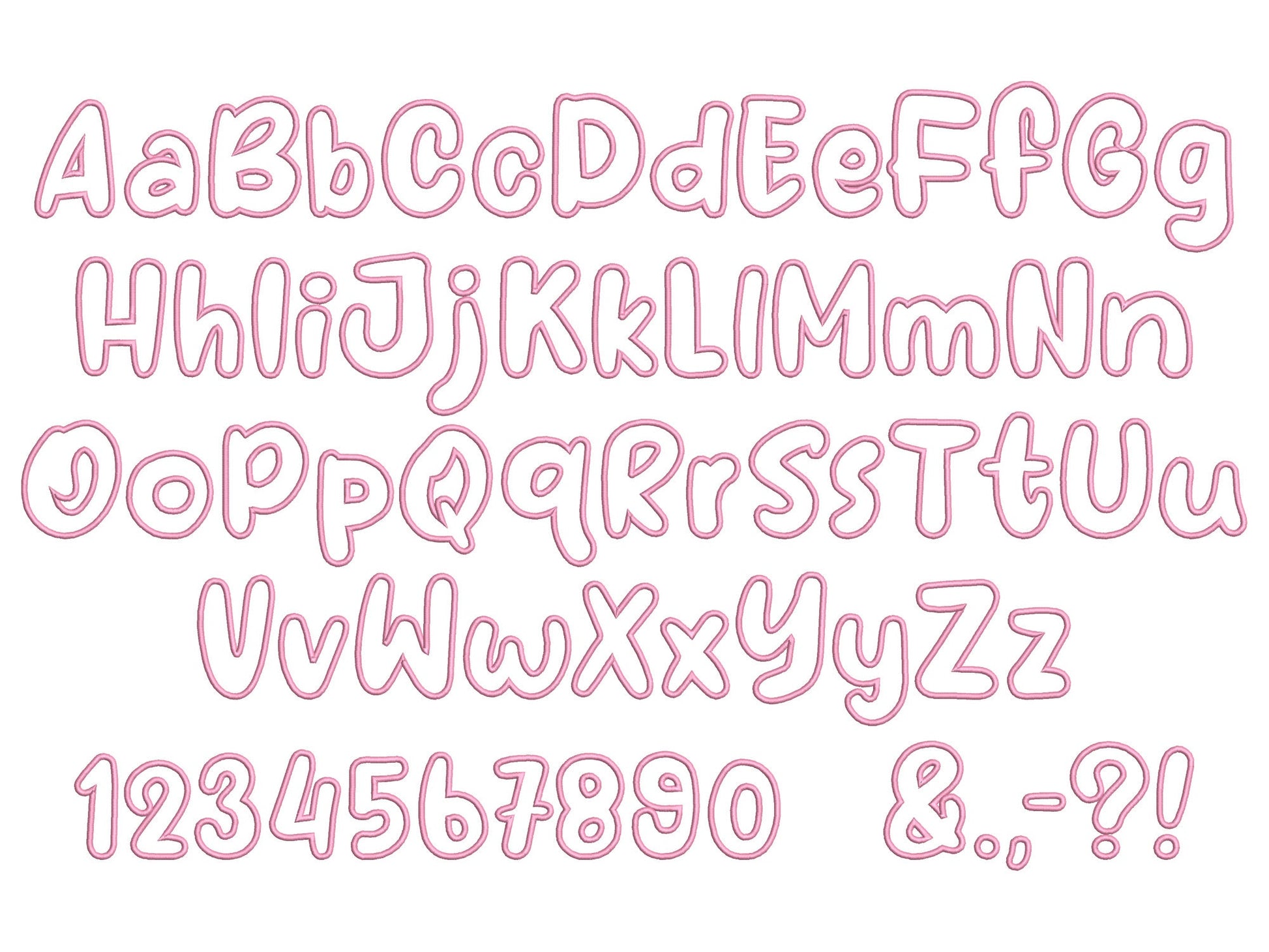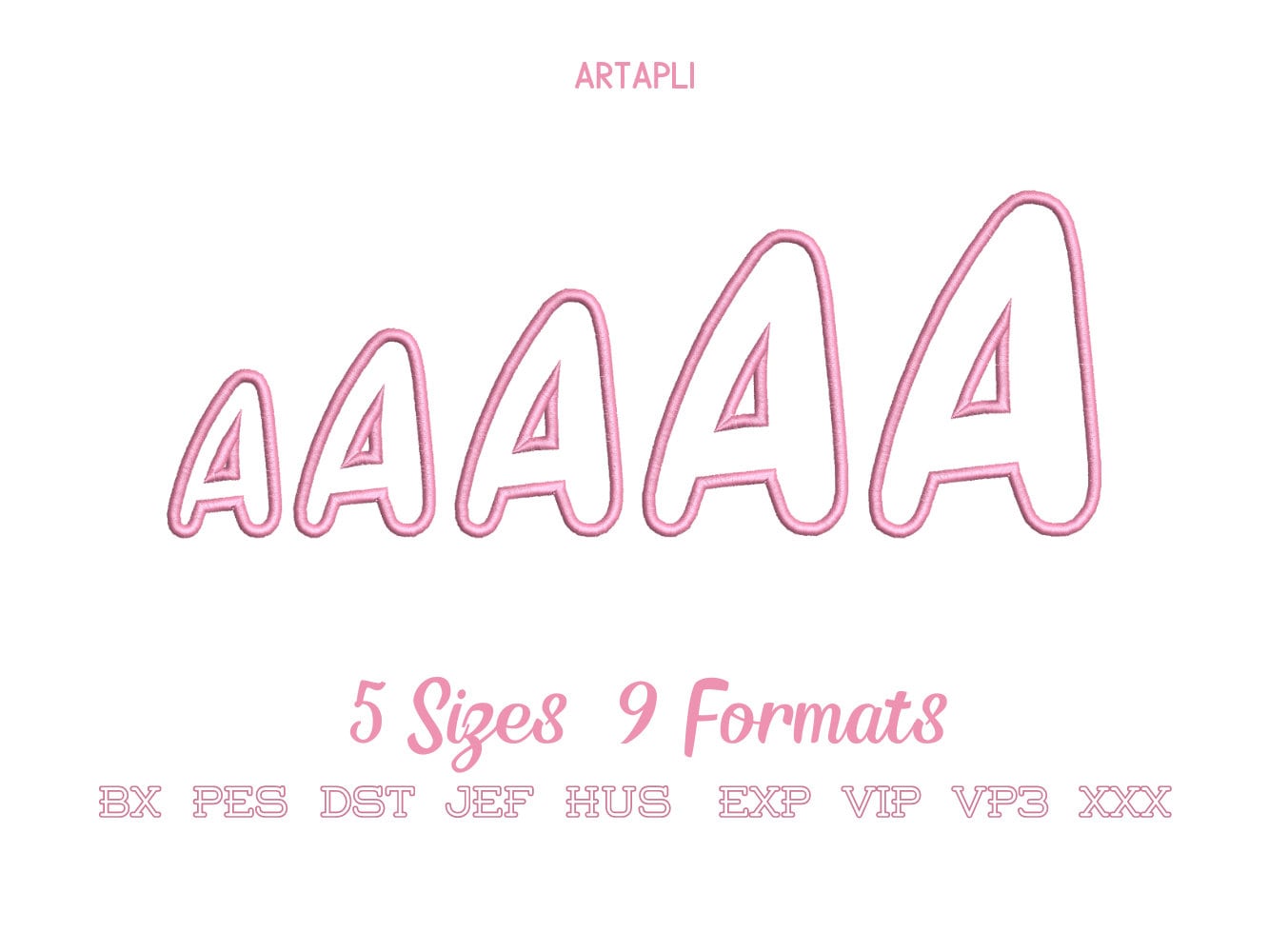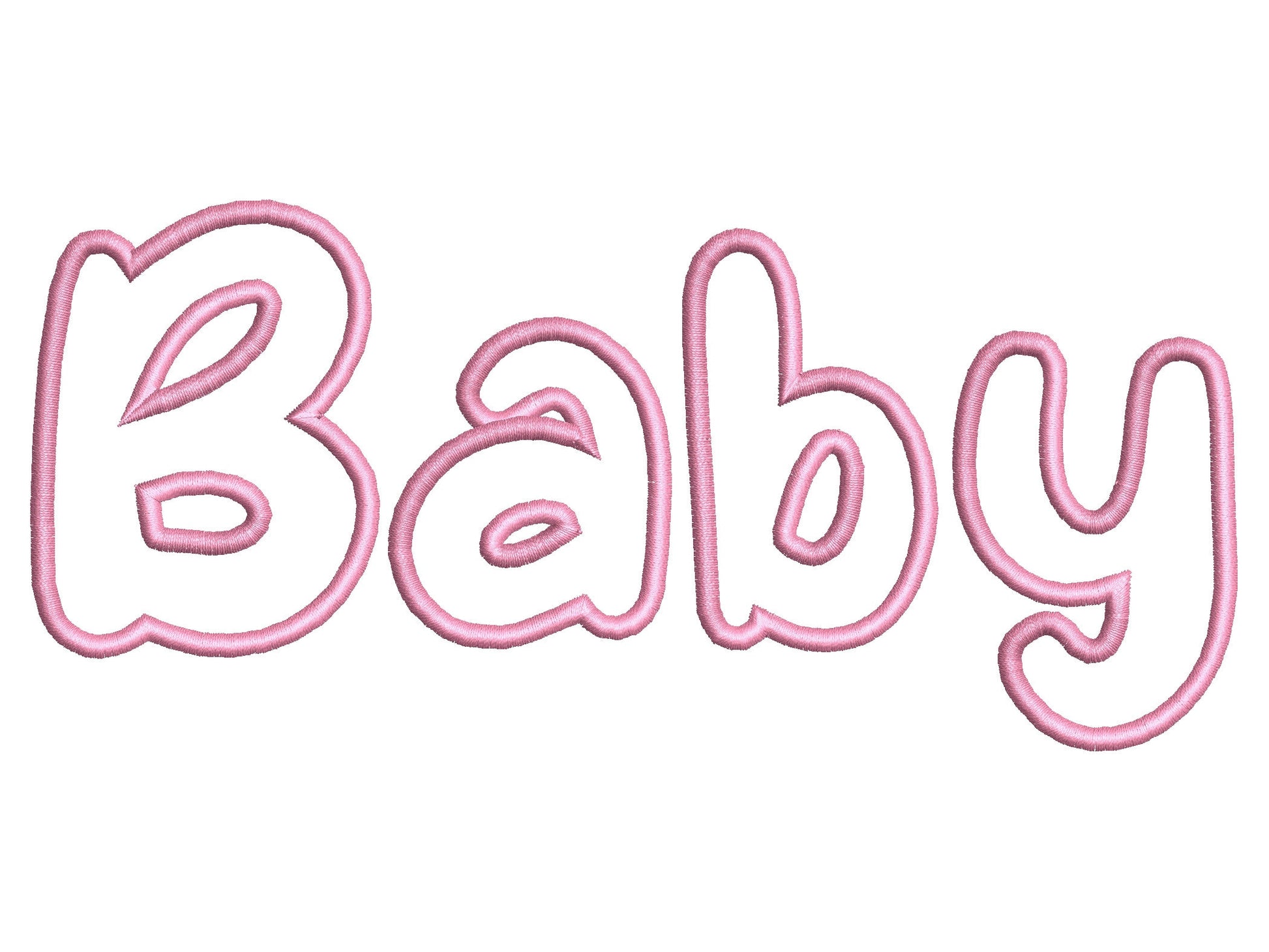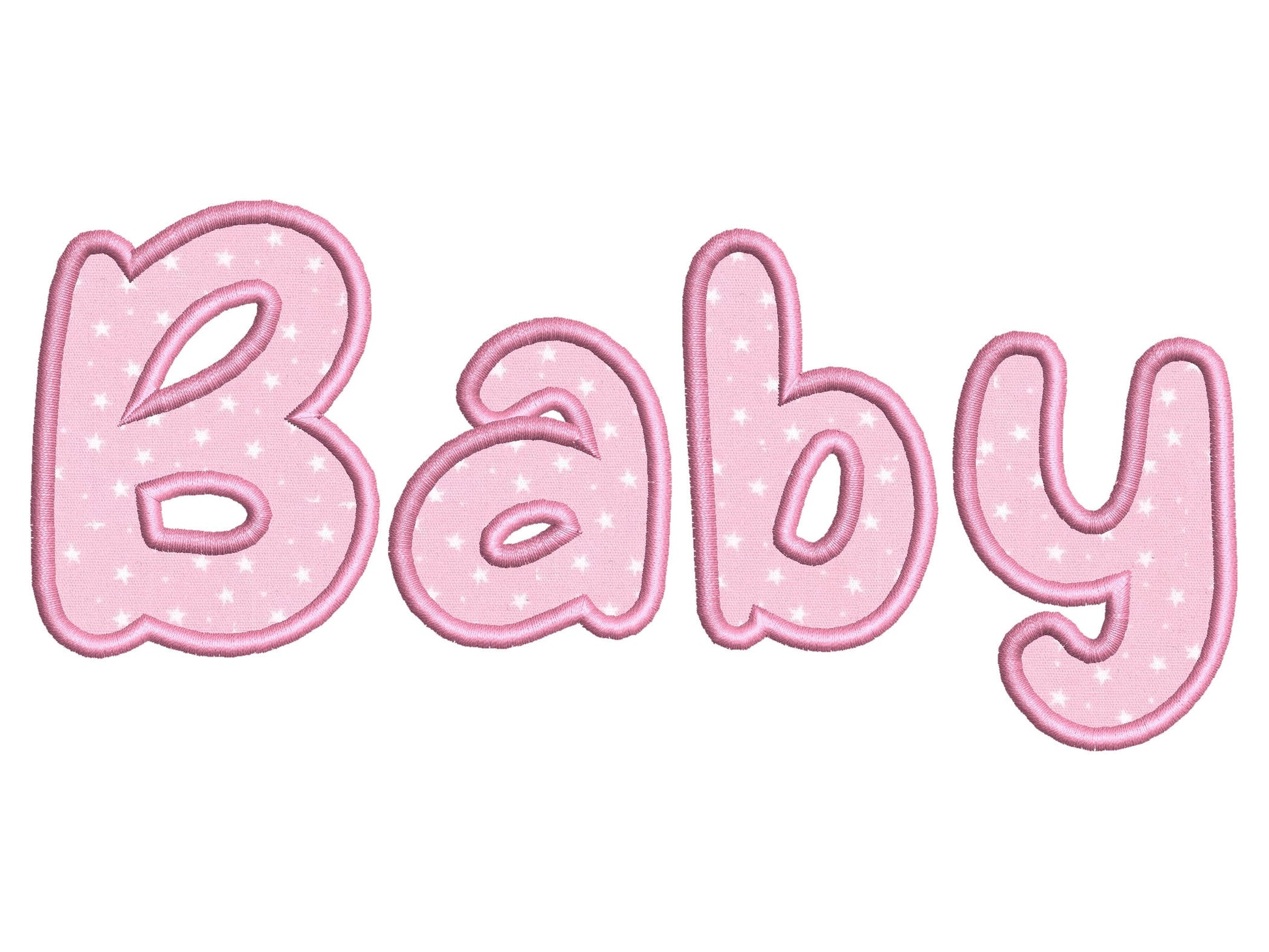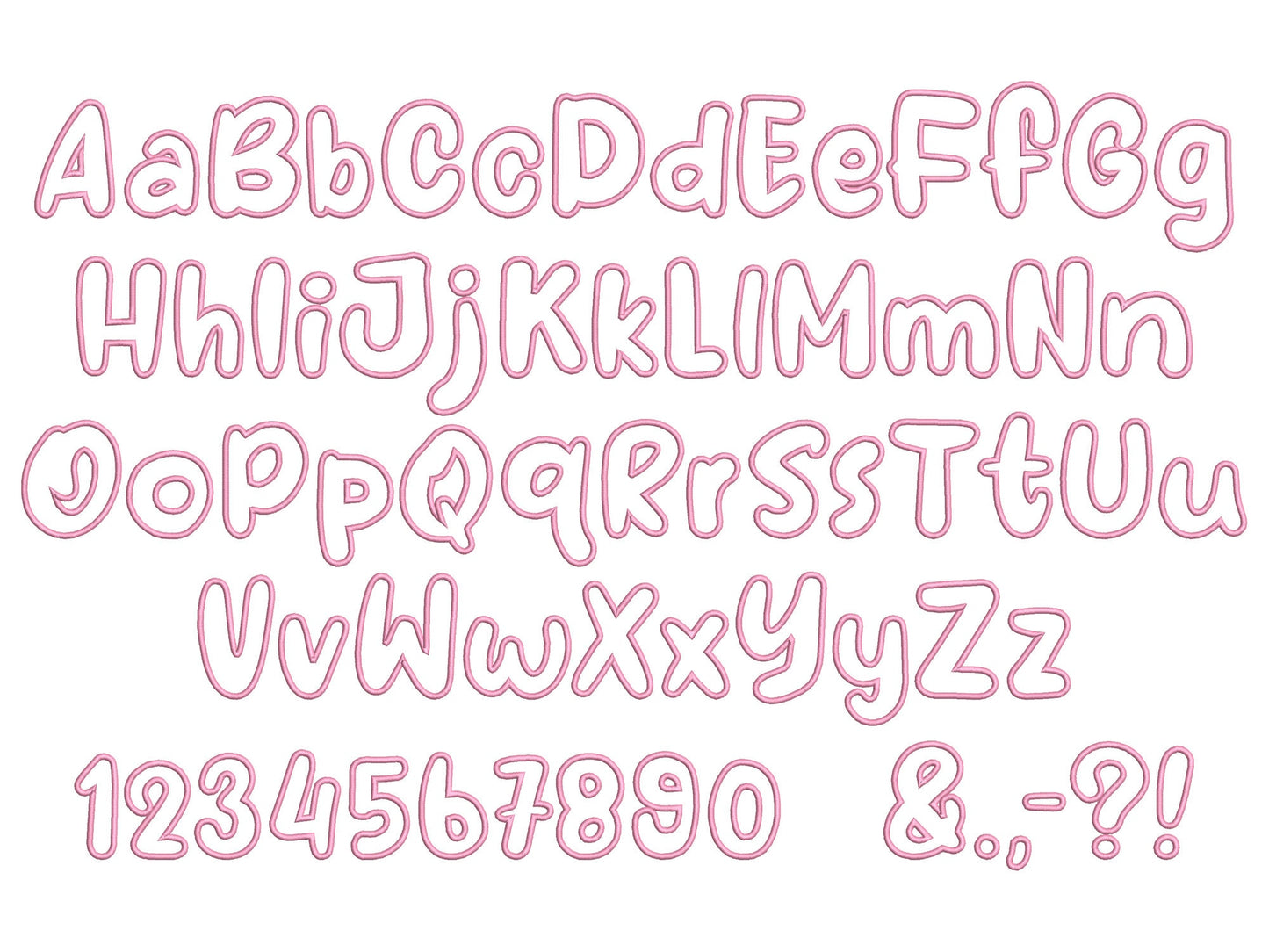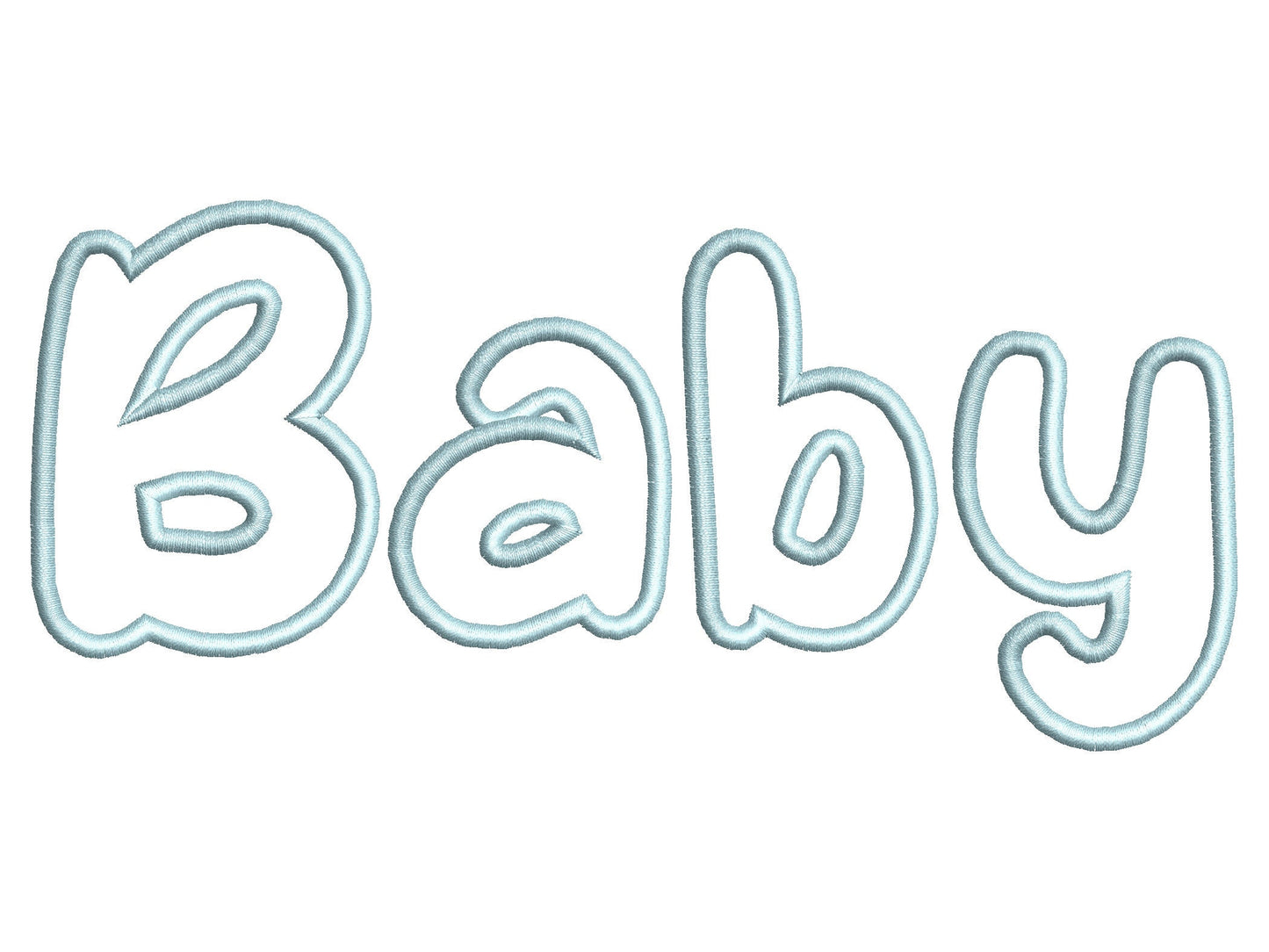
Baby Applique Font
Or click to open the linkAn applique font for baby and kids' names. Sweet on bibs, blankets, onesies and nursery pillows.
The letters come in five sizes: 1.4, 1.7, 2, 2.5 and 3 inches. Every letter is stitched as an applique, so you can pick a fabric for each one. Includes uppercase and lowercase letters, numbers 0 to 9 and punctuation.